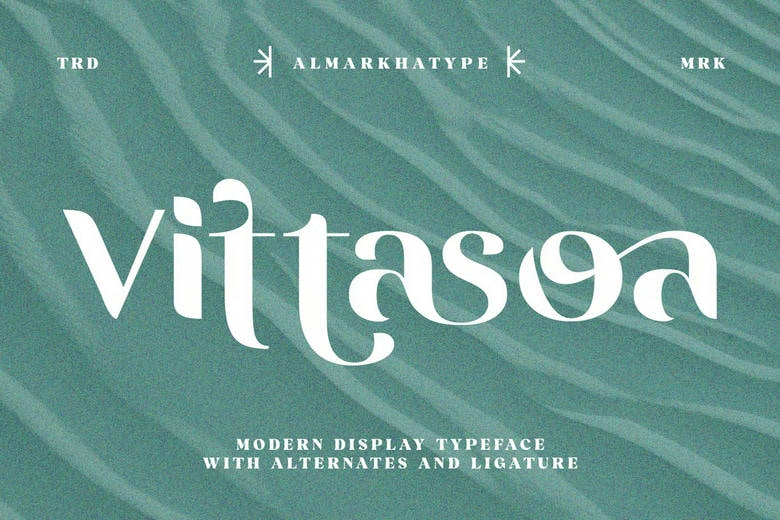
Vittasoa Font
Vittasoa Font is a modern typeface that is created with graceful curves and distinctive letter forms. Vittasoa is the perfect font that provides a modern and stylish appearance to your designs with the ability to experiment with more advanced typography.
All characters are meticulously designed to produce a graceful and exuberant visual identity.Infinite in the variety of its design applications, including logos, branding, editorial layouts, invitations, social media graphics, fashion projects, product packaging, and so on.
Vittasoa Display Font